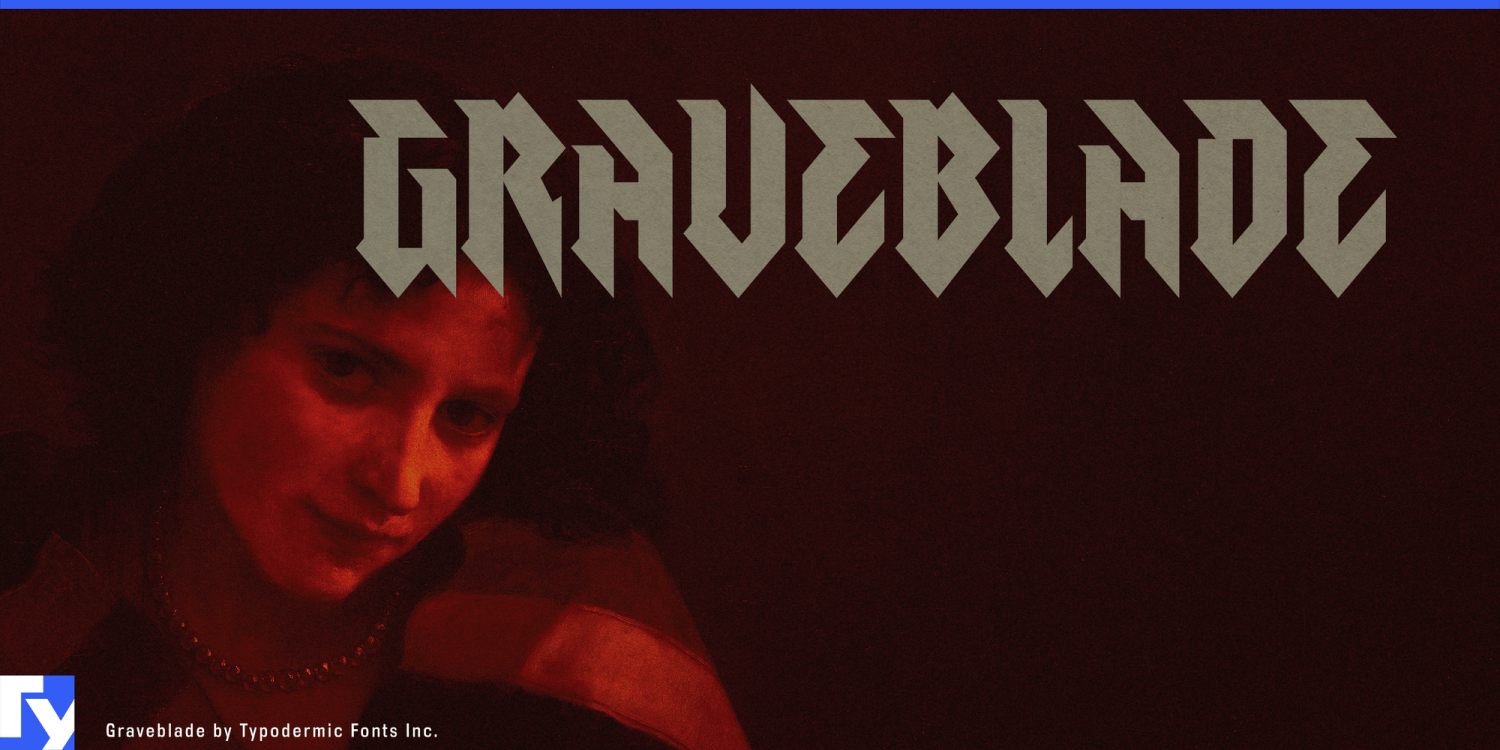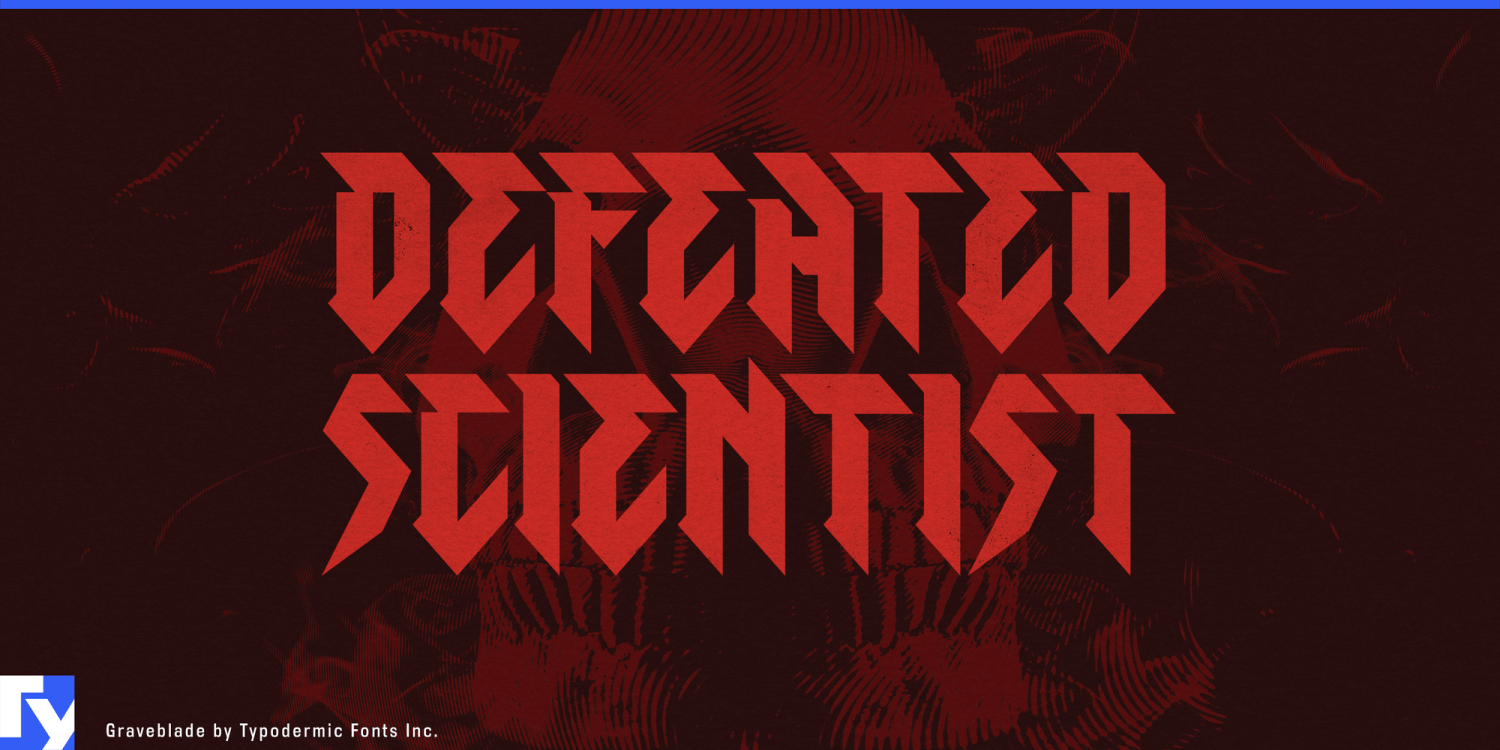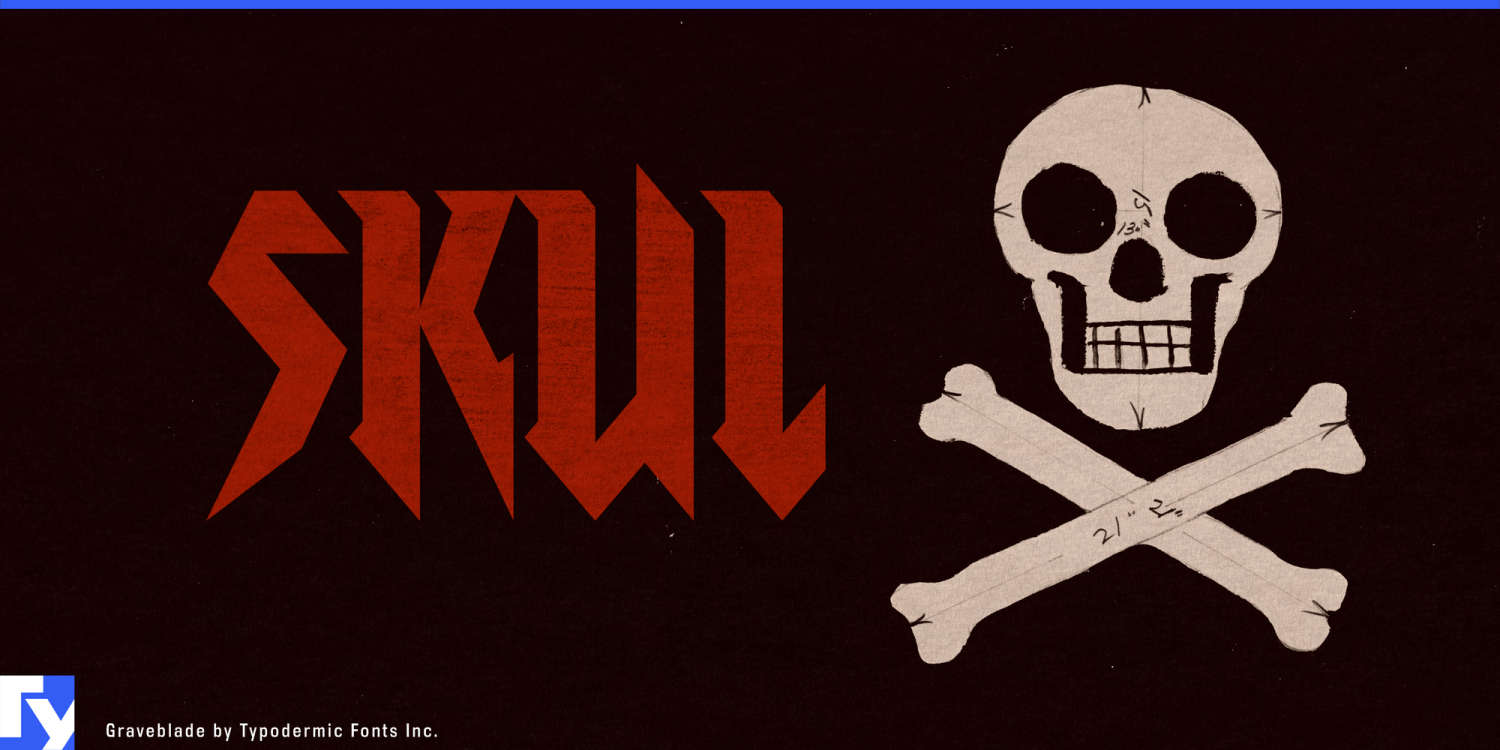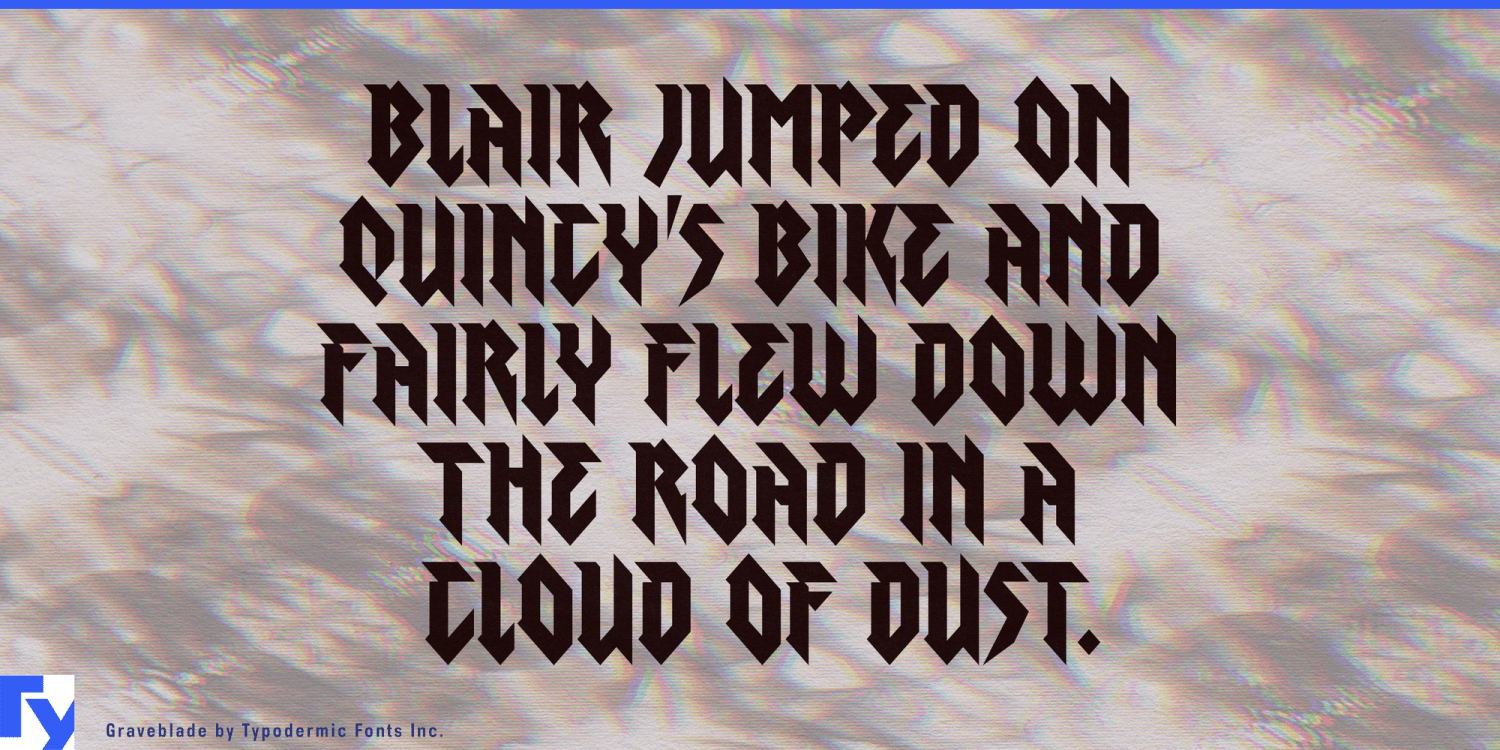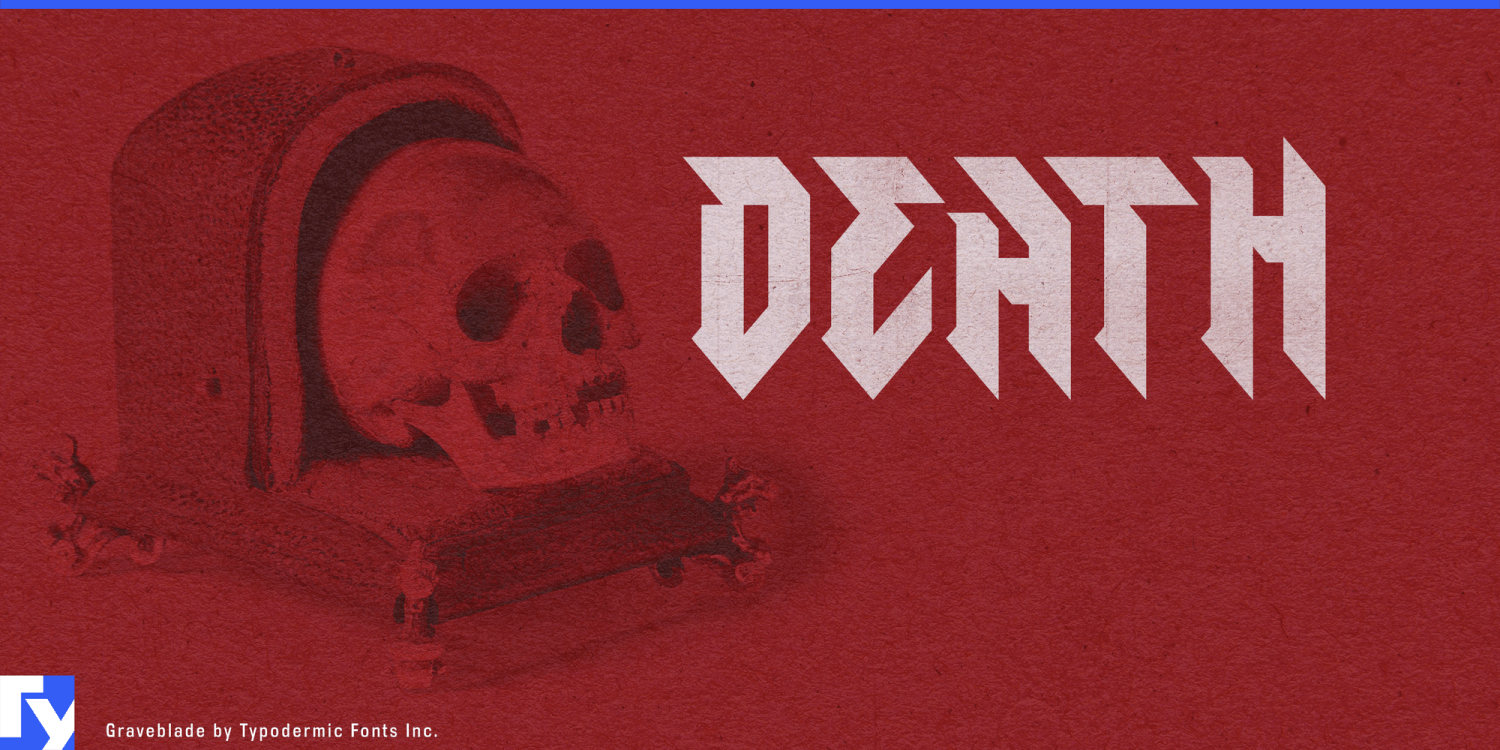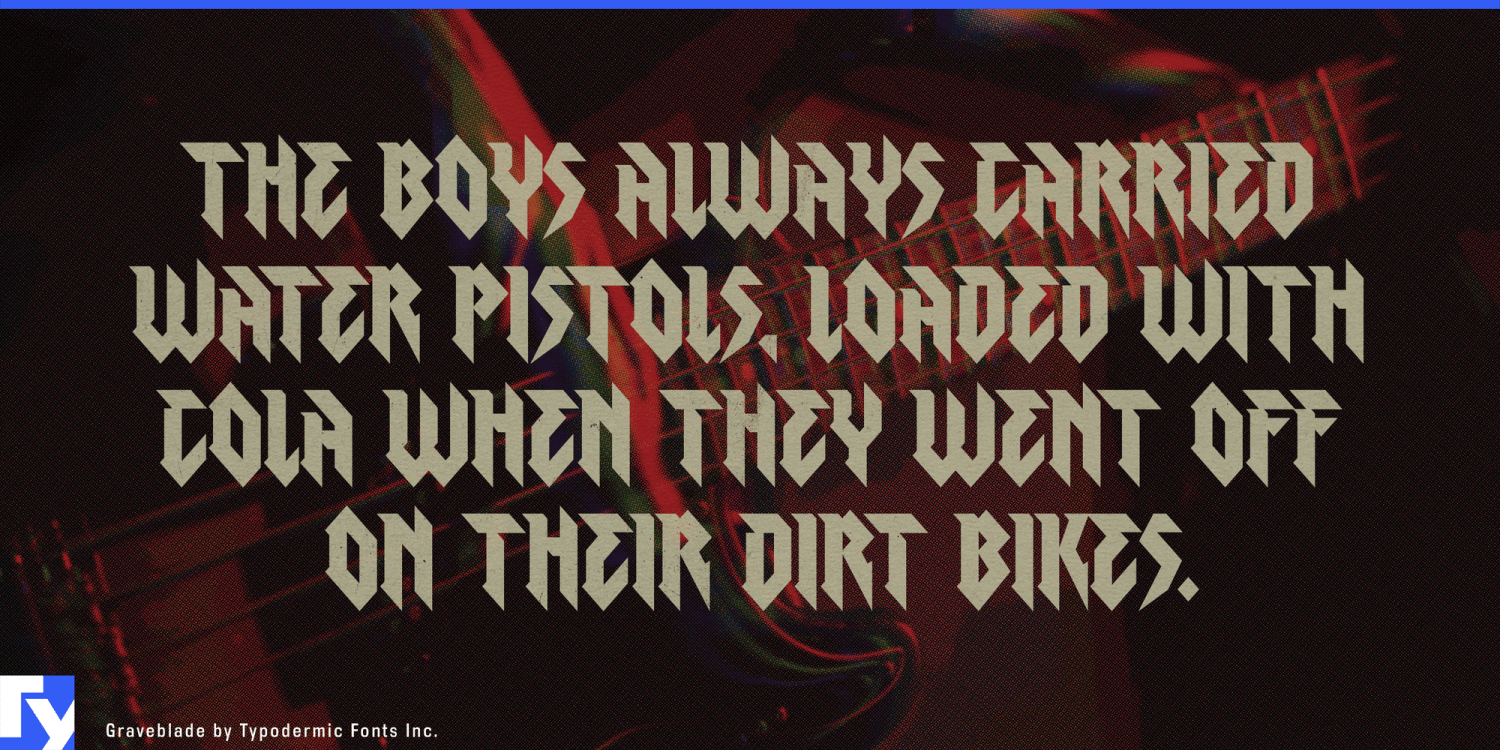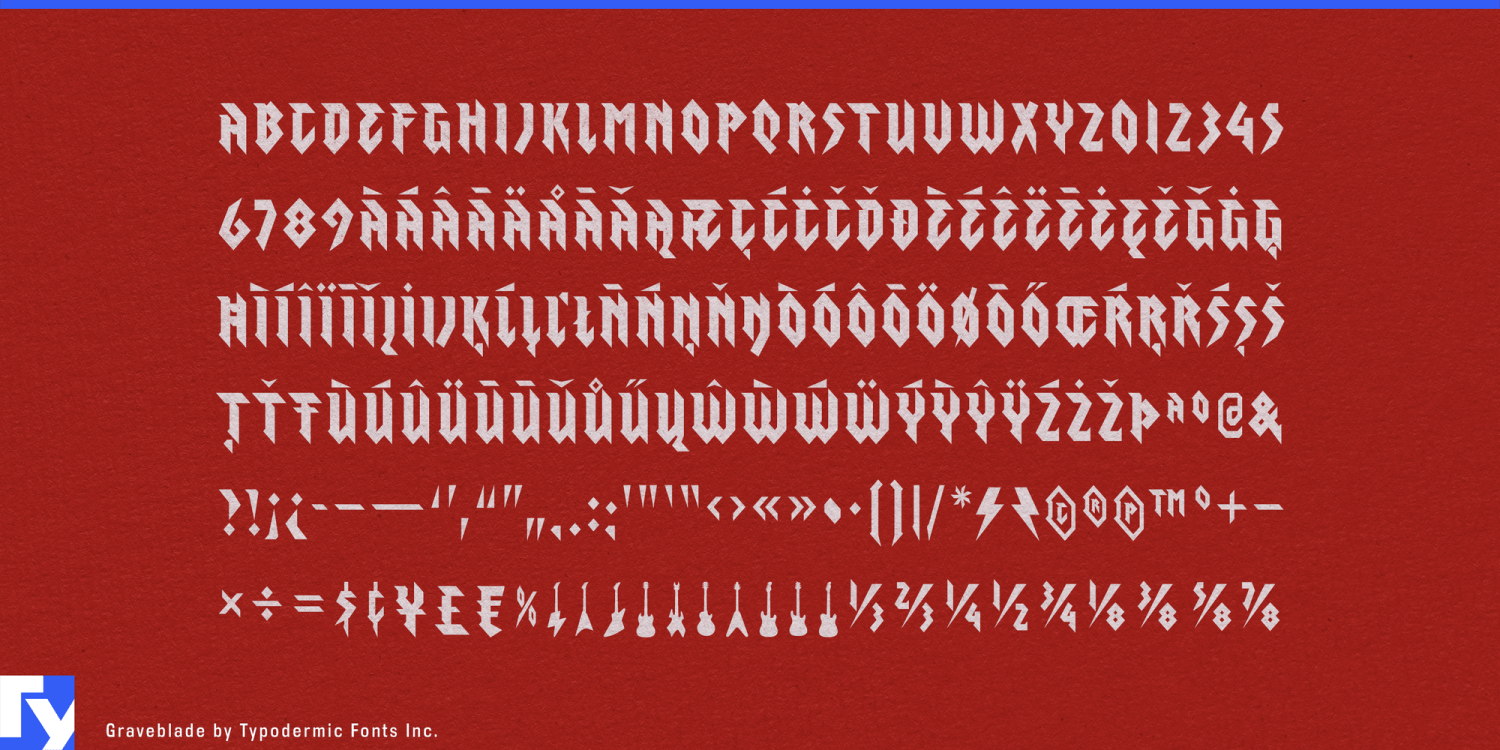
Graveblade
Font Family by Typodermic
Aggressive display lettering often forces a choice. Traditional blackletter can provide darkness and historical weight, but it may pull a project toward medieval associations. Extreme-metal lettering can look genuinely hostile, but sometimes at the cost of immediate recognition. Cleaner angular fonts stay readable, yet often lose the sense of danger that made the designer reach for something sharper in the first place.
Graveblade is built for the space between those extremes. Its condensed forms retain some of the rhythm and compression of blackletter, but the strokes are simplified into blades, lightning-like diagonals, sharp terminals, and hard directional changes. The result can look menacing without turning every word into a deciphering exercise.
Combat sports are a particularly strong setting. MMA cards, boxing events, professional wrestling, fight-week merchandise, championship graphics, and athlete identities all need typography that can project hostility at arena scale while remaining legible on broadcasts, posters, apparel, and social graphics. Graveblade can handle event names, fighter nicknames, faction identities, walkout-shirt graphics, weigh-in backdrops, promotional screens, and limited merchandise collections.
Year-round horror attractions provide another natural territory. Haunted experiences, dark rides, scare zones, immersive horror venues, and permanent horror destinations need attraction names that can signal danger without automatically falling into Victorian gothic, dripping-blood lettering, or distressed wood. Graveblade suits entrance marquees, attraction titles, chapter names, queue graphics, event merchandise, and large promotional screens.
Dark fantasy and action entertainment use the same balance of menace and clarity. Horror-action games, demon-hunting worlds, brutal action RPGs, and other dark franchises need expansion titles, faction names, season graphics, collector-edition lettering, convention displays, key art, and merchandise that can feel dangerous without becoming unreadable.
Heavy music remains an obvious home, but Graveblade does not have to replace a band’s existing logo to be useful. Arena tours, metal festivals, anniversary editions, deluxe box sets, merchandise capsules, stage graphics, tour titles, and apparel slogans all need secondary display lettering that belongs beside more extreme custom logos.
Hard enduro, motocross, downhill racing, and off-road equipment culture provide a physical counterpart. Race names, helmet and goggle collections, protective-gear series, rider merchandise, team apparel, course-section names, launch graphics, and event screens can use Graveblade’s condensed aggression without drifting into military or generic techno styling.
Graveblade is most useful when a project needs typography that looks genuinely dangerous but cannot afford to become illegible.